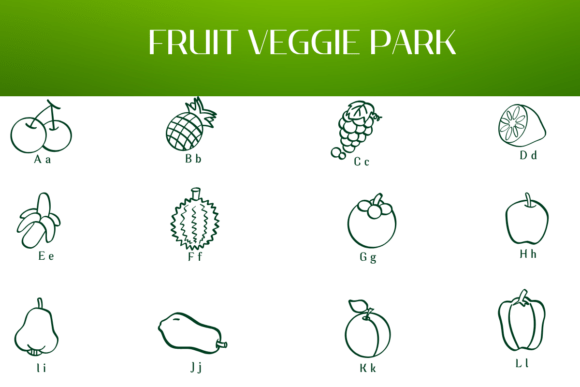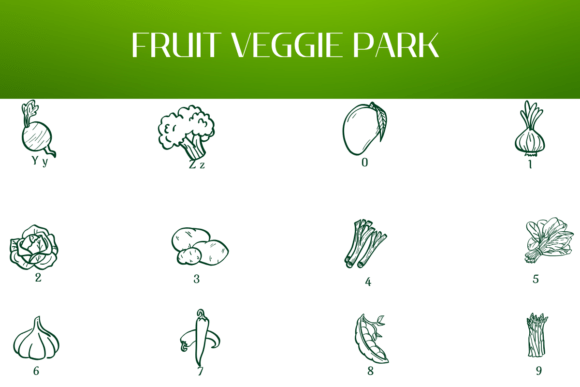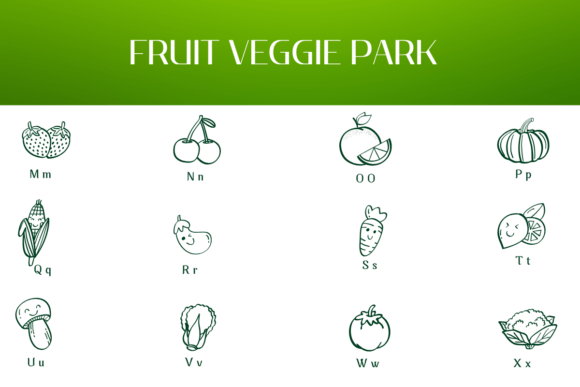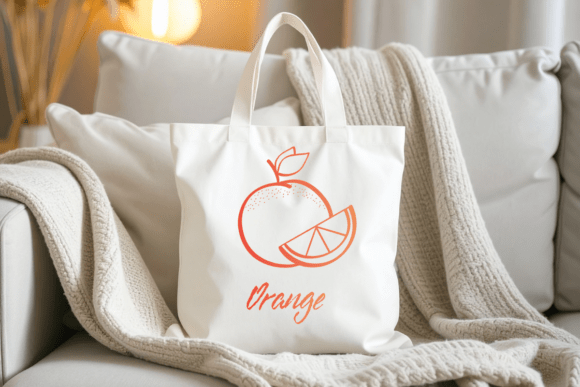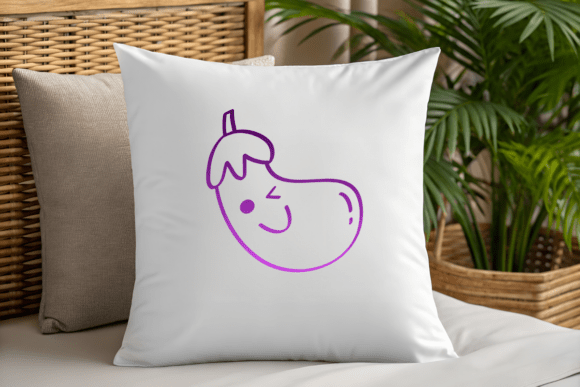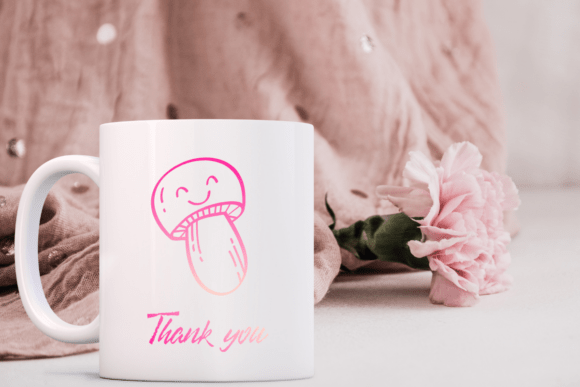
The Ultimate Guide to Fruit Veggie Park Font: Adding a Pop of Fun to Your Designs
I’ll never forget the time I was working on a project for a client’s farmer’s market branding. I had all the elements in place – the colors, the logo, the overall aesthetic – but something was missing. The font I was using just wasn’t doing justice to the playful, vibrant vibe I was going for. That’s when I stumbled upon Fruit Veggie Park Font, and it was love at first sight! 🎉
This fun dingbats font has since become a staple in my design toolkit, and I’m excited to share its awesomeness with you. In this article, we’ll dive into the world of Fruit Veggie Park Font, exploring its features, how to use it on different platforms, and some similar fonts you might enjoy.
An Honest Review of Fruit Veggie Park Font
- ✨ Unique and playful design: Fruit Veggie Park Font is a breath of fresh air in the world of dingbats fonts. Its quirky, hand-drawn feel is perfect for adding a touch of whimsy to your designs.
- ✅ Highly versatile: Whether you’re working on a branding project, a craft tutorial, or a social media graphic, this font adapts seamlessly to different styles and themes.
- 🎨 Great for illustrations and graphics: The font’s playful nature makes it an excellent choice for illustrations, icons, and other graphical elements.
While Fruit Veggie Park Font is an amazing addition to any design project, there are a few things to keep in mind:
- 🤔 Limited character set: As a dingbats font, Fruit Veggie Park Font has a limited character set compared to traditional fonts. This means you won’t have access to the full range of letters, numbers, and symbols.
- ⚠️ May not be suitable for body text: Due to its playful, decorative nature, Fruit Veggie Park Font might not be the best choice for body text or reading-heavy content.
The Backstory Behind Fruit Veggie Park Font
While the actual origins of Fruit Veggie Park Font are unclear, it’s easy to imagine a designer sitting in a lush garden, surrounded by fruits and veggies, and creating this delightful font as a way to capture the essence of nature. 🌿
Perhaps the designer wanted to create a font that would bring a smile to people’s faces and add a touch of playfulness to their designs. Whatever the inspiration, Fruit Veggie Park Font has undoubtedly become a beloved addition to many designers’ toolkits.
| What type of projects is Fruit Veggie Park Font best suited for? | Fruit Veggie Park Font is perfect for creative projects like branding, illustrations, icons, and crafting tutorials. |
| Is Fruit Veggie Park Font available in different styles or weights? | As a dingbats font, Fruit Veggie Park Font might not have multiple weights or styles, but it can still be used in various ways to achieve different effects. |
| Can I combine Fruit Veggie Park Font with other fonts? | Absolutely! Fruit Veggie Park Font pairs well with many other fonts. Feel free to experiment with different font combinations to find the perfect match for your project. |